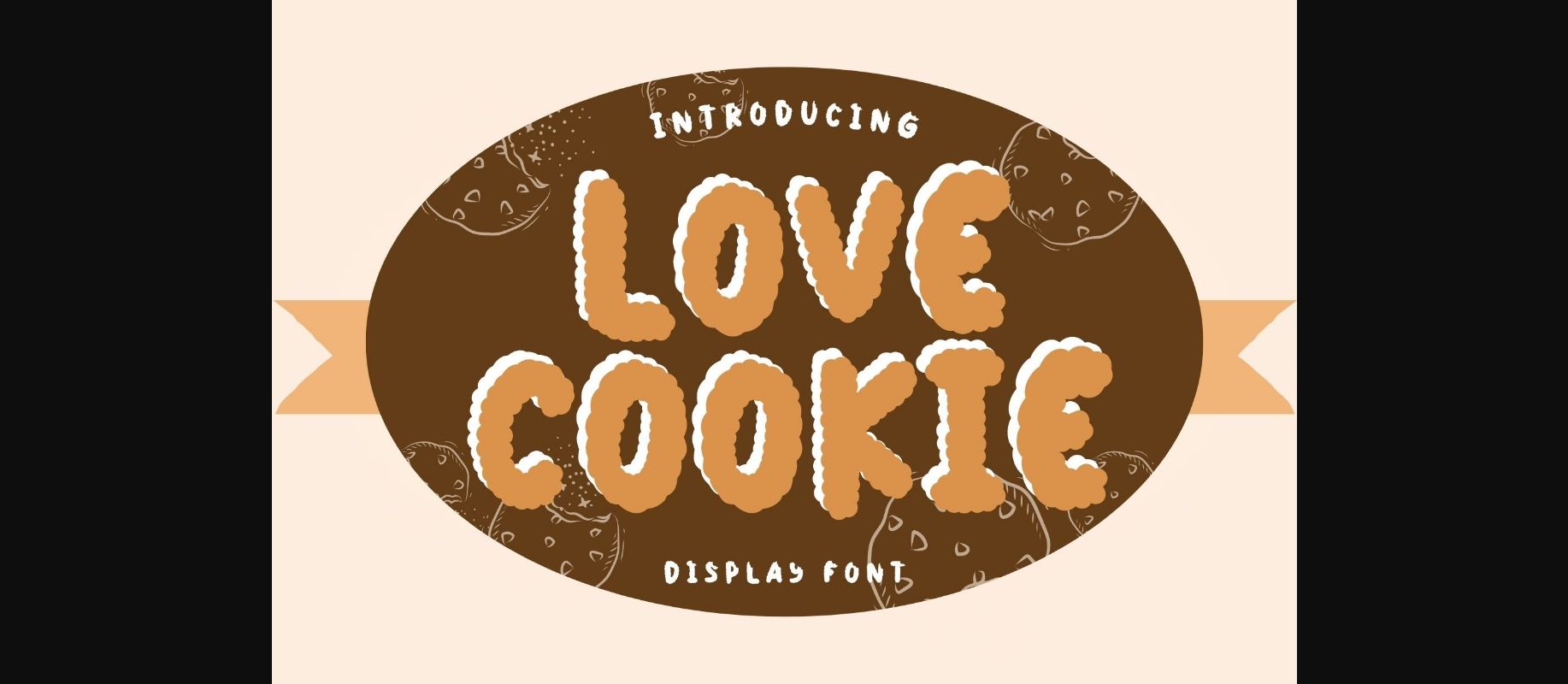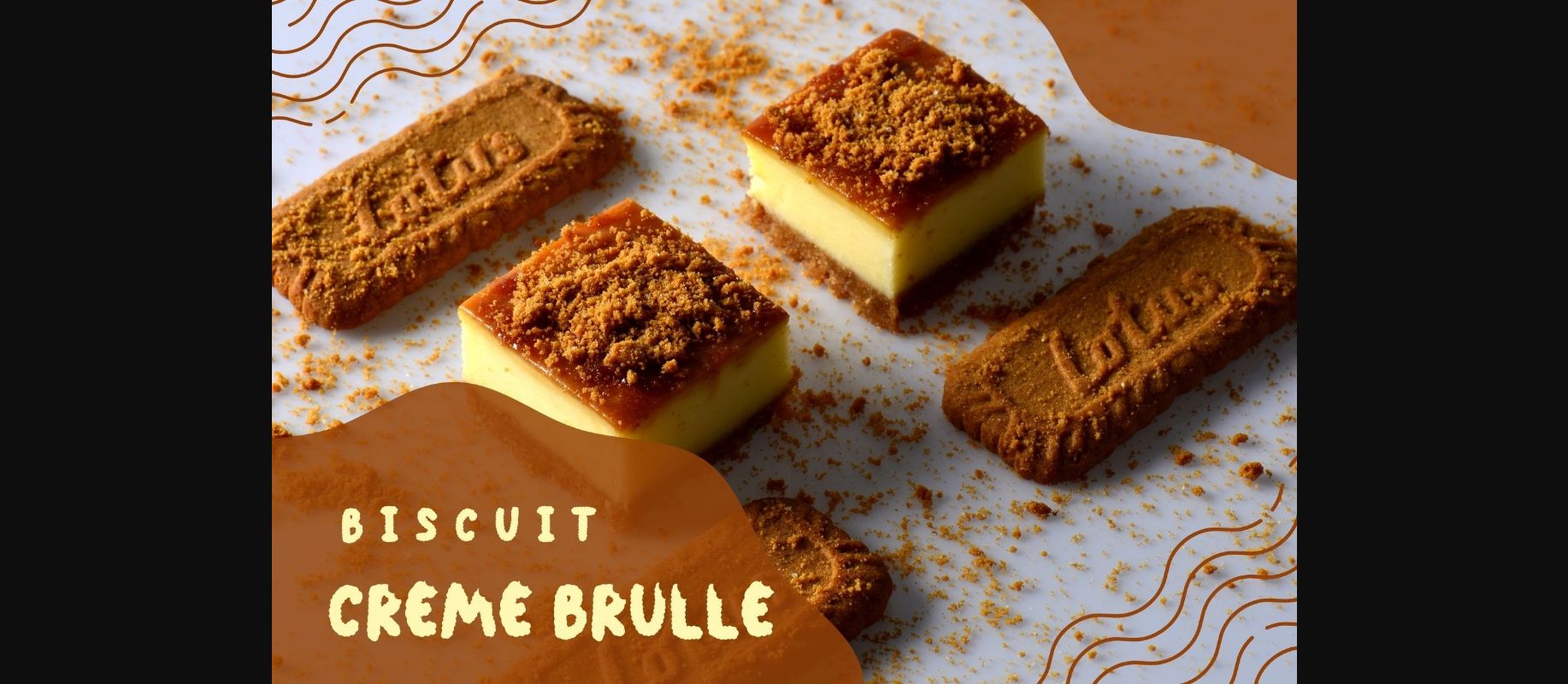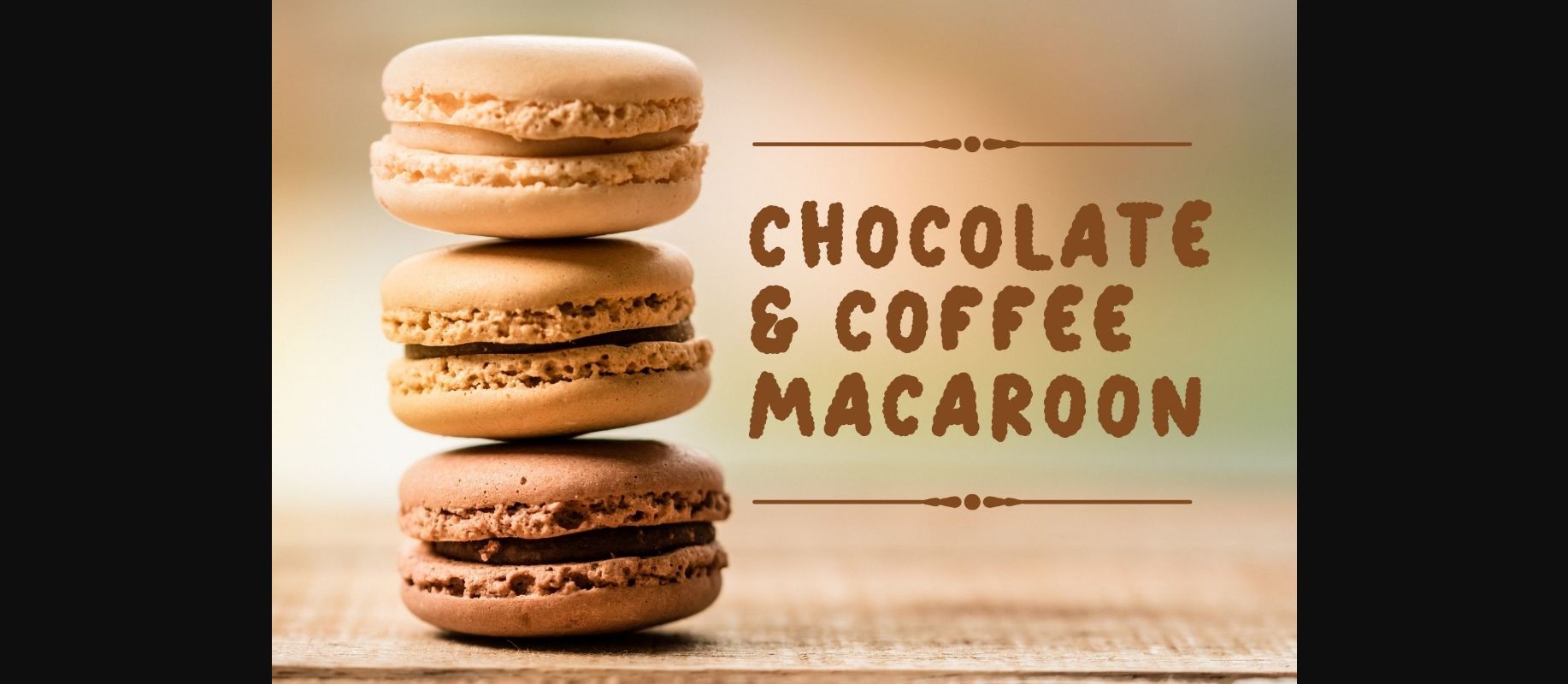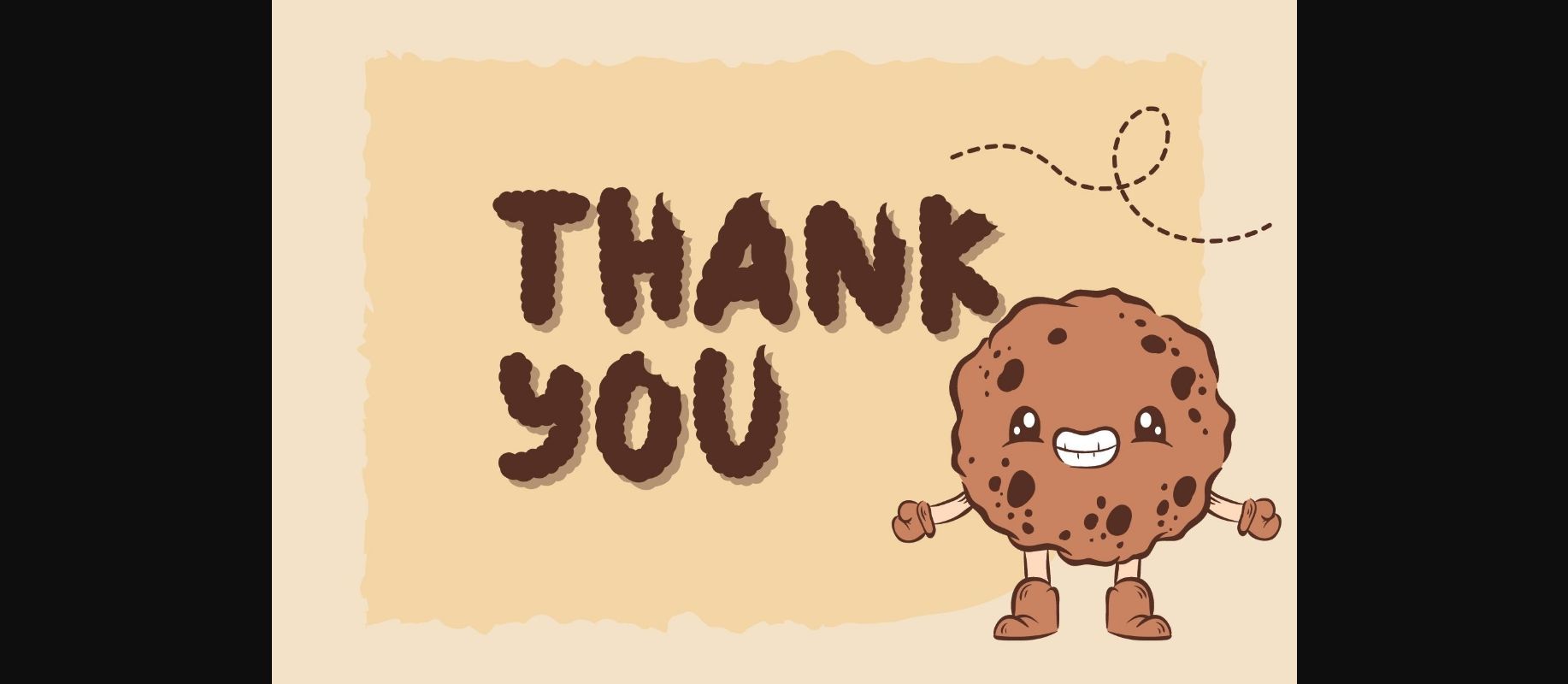
About Love Cookie Font
Love Cookie is a cute display font. It embodies playfulness and authenticity and is the perfect choice for all your favorite projects, or even for blog posts, logos, branding, ads, invitations, greeting cards, planners, photo albums, decorations, and much more. Add it to any of your designs, and enjoy the results!